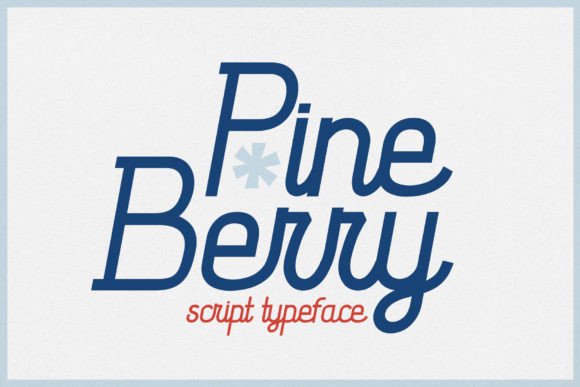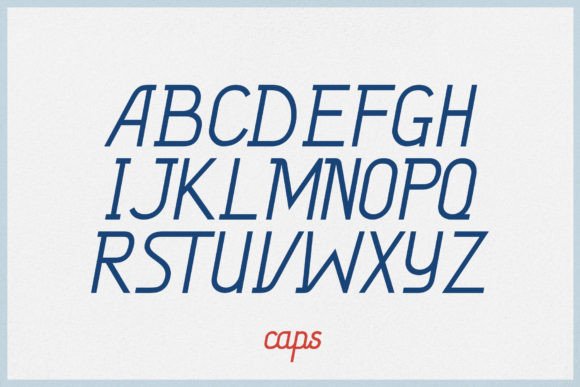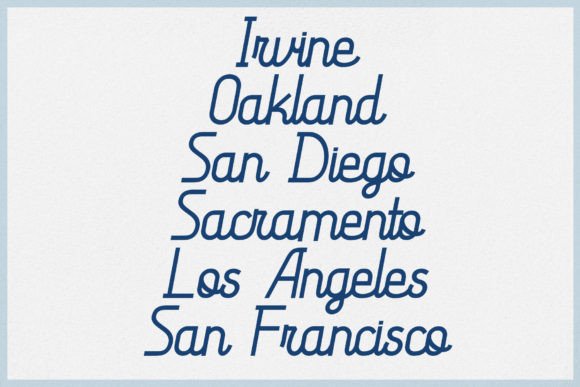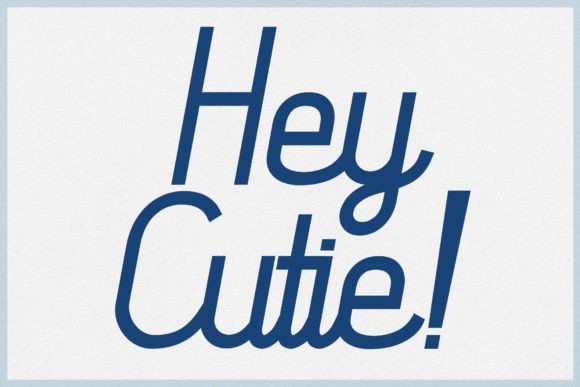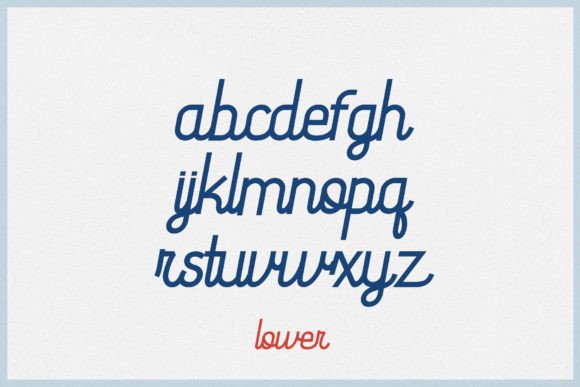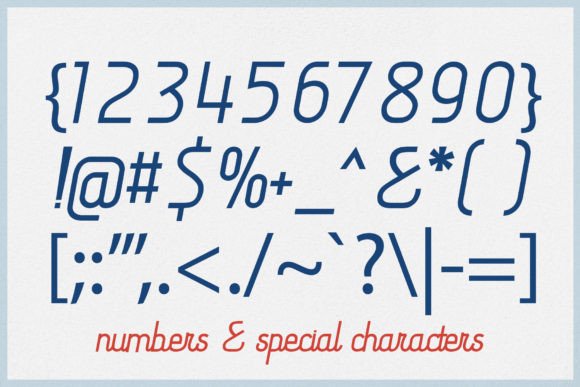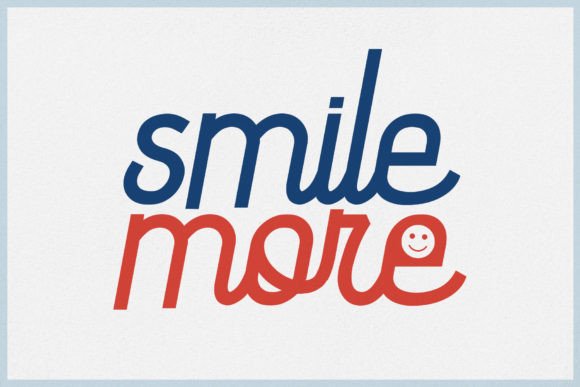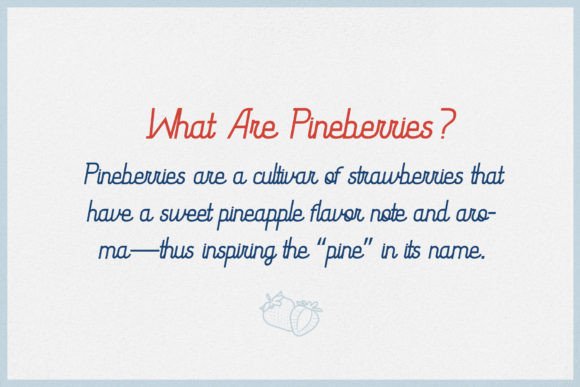
Pineberry Font
About Pineberry Font
Introducing Pineberry, a handmade cursive typeface inspired by the graphic design aesthetics of the 1960s-1970s. This font carries a playful and lighthearted personality that truly comes to life when used in various design applications such as packaging, book covers, wedding invitations, clothing brands, vintage designs, and more. Pineberry’s beautiful mono-weight curvilinear forms serve as attention-grabbing eye candy, adding a unique and nostalgic touch to your projects.
The charm of Pineberry lies in its handwritten and cursive style, reminiscent of the free-spirited and creative design trends from past decades. The font’s playful personality makes it well-suited for a variety of applications where a touch of whimsy is desired. Imagine Pineberry on vintage-inspired book covers, where it adds a retro flair, or on wedding invitations, infusing a sense of warmth and uniqueness.
The versatility of Pineberry makes it shine across different design contexts. Whether used for print or digital media, this font adapts seamlessly, contributing to the visual appeal of your projects. Its distinctive cursive forms bring a touch of nostalgia and a fun-loving spirit to your creative endeavors.
Visualize Pineberry becoming a key element in your design toolkit, transforming your projects into visually appealing and nostalgic pieces. Envision it on clothing brands, where its handmade charm adds character to your brand identity. Pineberry’s ability to evoke the spirit of past graphic design trends makes it a valuable addition that brings a playful and lighthearted touch to your designs.
In conclusion, Pineberry is not just a font; it’s a handmade cursive typeface that captures the essence of 1960s-1970s graphic design. Download it today and experience how it transforms your packaging, book covers, invitations, and more into expressions of playful nostalgia. Make Pineberry a cherished addition to your font collection, and let it be the key to unlocking a world of creativity and retro charm in your designs!